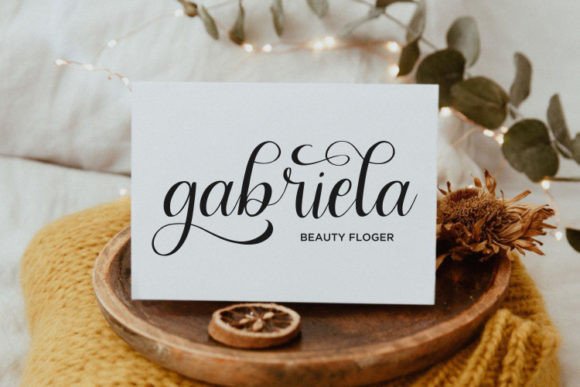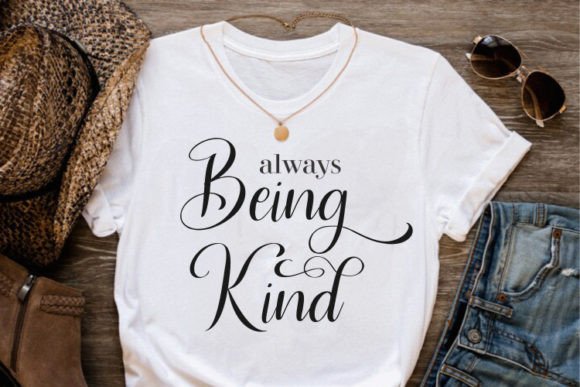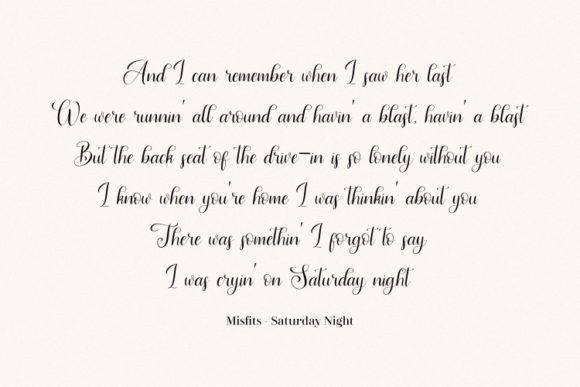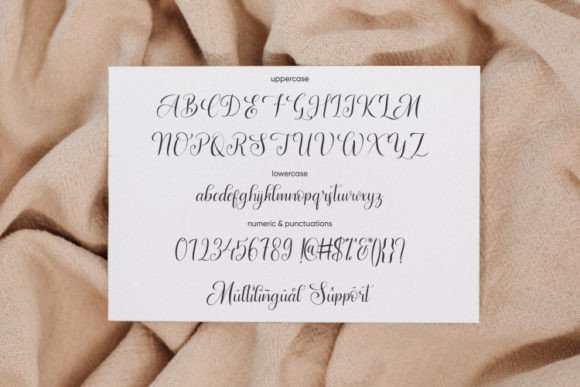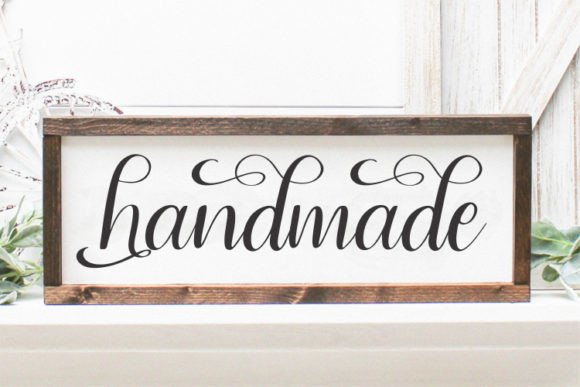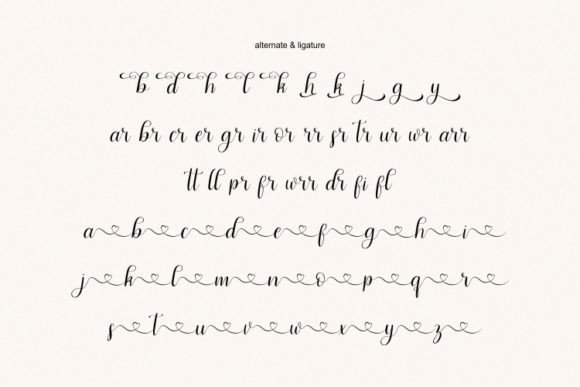
Gildane Hyme Font: Elevate Your Designs with Elegance and Sophistication
In the world of typography, a font can make or break a design. For designers and crafters, finding the perfect font that adds a touch of elegance and sophistication to their creations can be a daunting task. However, if you’re looking for a font that can elevate your designs to the next level, look no further than the Gildane Hyme Font. This dazzling script font is neatly crafted and highly detailed, making it a wonderful asset to your font library.
What Makes Gildane Hyme Font Stand Out?
Gildane Hyme Font is a stunning script font that is sure to impress. Its elegant and flowing lines make it perfect for a variety of design projects, from wedding invitations and branding materials to social media graphics and more. The font’s intricate details and beautiful swashes add a touch of sophistication to any design, making it perfect for designers and crafters who want to create something truly special.
One of the standout features of Gildane Hyme Font is its PUA (Private Use Area) encoding. This means that you can access all glyphs and swashes with ease, giving you complete creative control over your designs. Whether you’re looking to add a personal touch to your projects or create a unique brand identity, Gildane Hyme Font has got you covered.
Why Designers and Crafters Love Gildane Hyme Font
So, why do designers and crafters love Gildane Hyme Font? For starters, its versatility makes it perfect for a wide range of design projects. Whether you’re working on a wedding invitation, a logo, or a social media graphic, this font is sure to impress. Its elegant and sophisticated design makes it perfect for:
• Branding materials and logos
• Packaging and product design
• And more!
Another reason designers and crafters love Gildane Hyme Font is its ease of use. The font is PUA encoded, making it easy to access all glyphs and swashes. This means that you can focus on creating stunning designs, rather than getting bogged down in complicated font files.
Tips for Using Gildane Hyme Font in Your Designs
So, how can you get the most out of Gildane Hyme Font in your designs? Here are a few tips to get you started:
• Experiment with different font sizes and colors to add depth and dimension to your designs
• Use the font’s swashes and glyphs to add a personal touch to your projects
• Pair Gildane Hyme Font with other fonts to create a unique and eye-catching design
• Don’t be afraid to get creative and try new things – Gildane Hyme Font is versatile and can be used in a variety of design projects
In conclusion, Gildane Hyme Font is a stunning script font that is sure to elevate your designs to the next level. Its elegant and sophisticated design, combined with its PUA encoding and ease of use, make it a must-have for designers and crafters. Whether you’re working on a wedding invitation, a logo, or a social media graphic, Gildane Hyme Font is the perfect choice. So why wait? Add Gildane Hyme Font to your font library today and start creating stunning designs that will leave a lasting impression.
With its versatility, elegance, and ease of use, Gildane Hyme Font is sure to become a favorite in your design arsenal. So go ahead, get creative, and see what amazing designs you can create with Gildane Hyme Font!